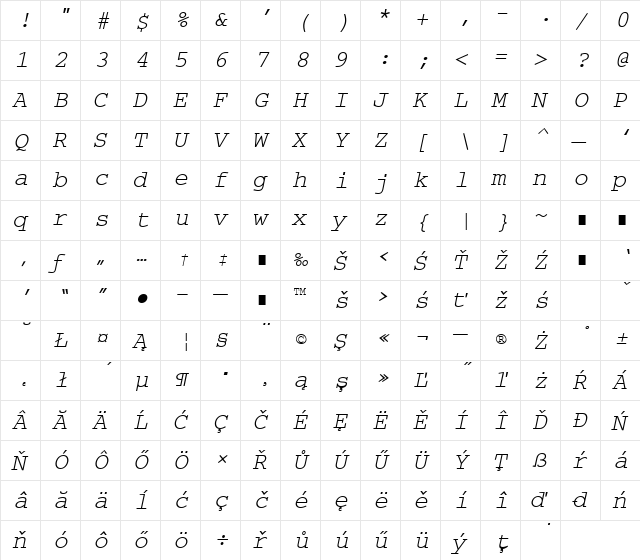
CourierEe Italic Font Preview
CourierEe Italic
CourierEe Italic Font Details
Design Context for CourierEe Typeface
CourierEe brings the precise, column-aligned rhythm of monospaced typography to designs that value technical clarity and systematic order. The dynamic lean of this cut emphasises speed and emphasis in any layout.
Pro Tip: Pair CourierEe with a proportional sans for UI contexts where code-style labels and regular body copy need to coexist.